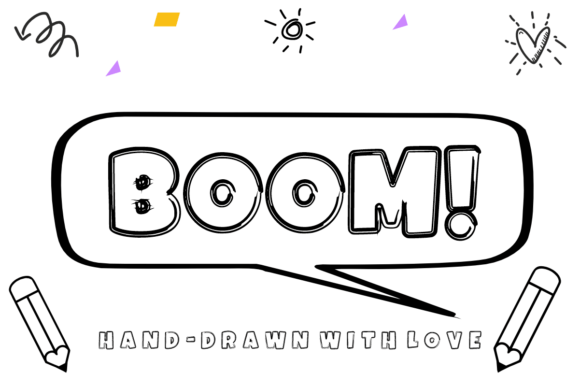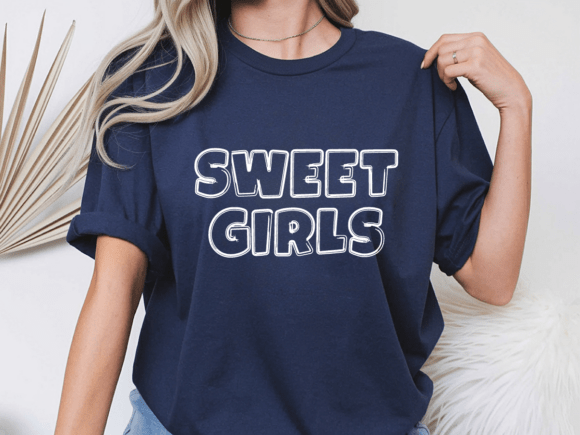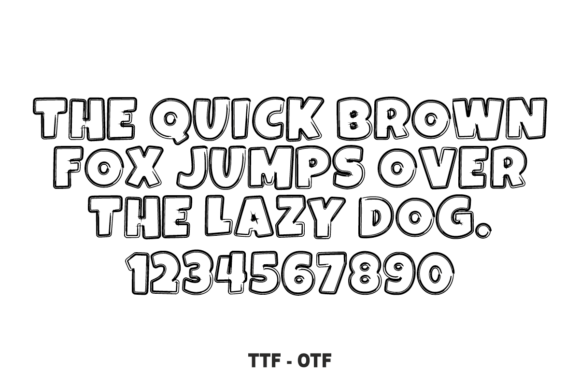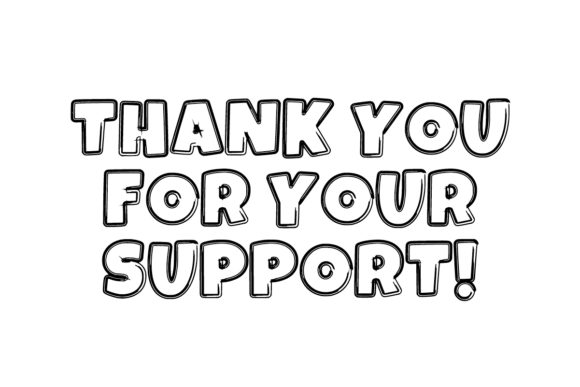
Introducing Comic Doodle: The Ultimate Fun & Sketchy Kids Display Font
Are you looking for a font that can bring a touch of hand-drawn charm to your designs? Look no further than Comic Doodle, a playful display font that is perfect for projects that need to feel friendly, creative, and full of life. With its unique “sketch” style, double outlines, and organic imperfections, Comic Doodle mimics a real pencil drawing, making it an excellent choice for a wide range of applications.
What Makes Comic Doodle Special?
Comic Doodle is more than just a font – it’s an experience. Its bold presence and whimsical vibe make it stand out from the crowd, while its high legibility ensures that it works perfectly for both digital designs and physical crafts. Whether you’re creating educational worksheets, comic book titles, or personalized birthday dĂ©cor, Comic Doodle is the perfect choice.
So, what can you use Comic Doodle for? The possibilities are endless! Here are some ideas to get you started:
- School & Education: Create engaging worksheets, book covers, and classroom labels that will delight students and teachers alike.
- Kids’ Content: Bring your coloring books, comic strips, and YouTube thumbnails to life with Comic Doodle’s playful charm.
- Creative Apparel: Design eye-catching T-shirts, hoodies, and canvas bags that kids will love.
- Party Decor: Make your invitations, banners, and stickers stand out with Comic Doodle’s fun and festive vibe.
- DIY Crafting: Use Comic Doodle for vinyl cutting, scrapbooking, and sublimation projects that require a personal touch.
Key Features of Comic Doodle
So, what sets Comic Doodle apart from other fonts? Here are some of its key features:
- Unique “Sketch” Style: Comic Doodle’s hand-drawn look and feel makes it perfect for projects that need a personal touch.
- Double Outlines: The font’s double outlines give it a bold and playful appearance.
- Organic Imperfections: Comic Doodle’s organic imperfections mimic a real pencil drawing, adding to its charm.
- High Legibility: Despite its playful style, Comic Doodle is highly legible, making it perfect for both digital and physical projects.
Unleash Your Imagination with Comic Doodle
Tips for Using Comic Doodle
Here are some tips for getting the most out of Comic Doodle:
- Experiment with Colors: Comic Doodle looks great in a variety of colors, so don’t be afraid to experiment and find the perfect hue for your project.
- Mix and Match: Combine Comic Doodle with other fonts and graphics to create a unique and eye-catching design.
- Pay Attention to Scale: Make sure to adjust the scale of Comic Doodle to suit your project. The font looks great in large sizes, but it can also be used for smaller projects like labels and stickers.
In conclusion, Comic Doodle is a fun and sketchy kids display font that is perfect for projects that need to feel friendly, creative, and full of life. With its unique “sketch” style, double outlines, and organic imperfections, Comic Doodle is sure to bring a touch of hand-drawn charm to your designs. So why wait? Download Comic Doodle today and start creating something amazing!